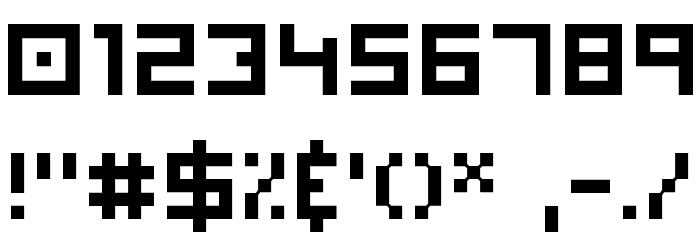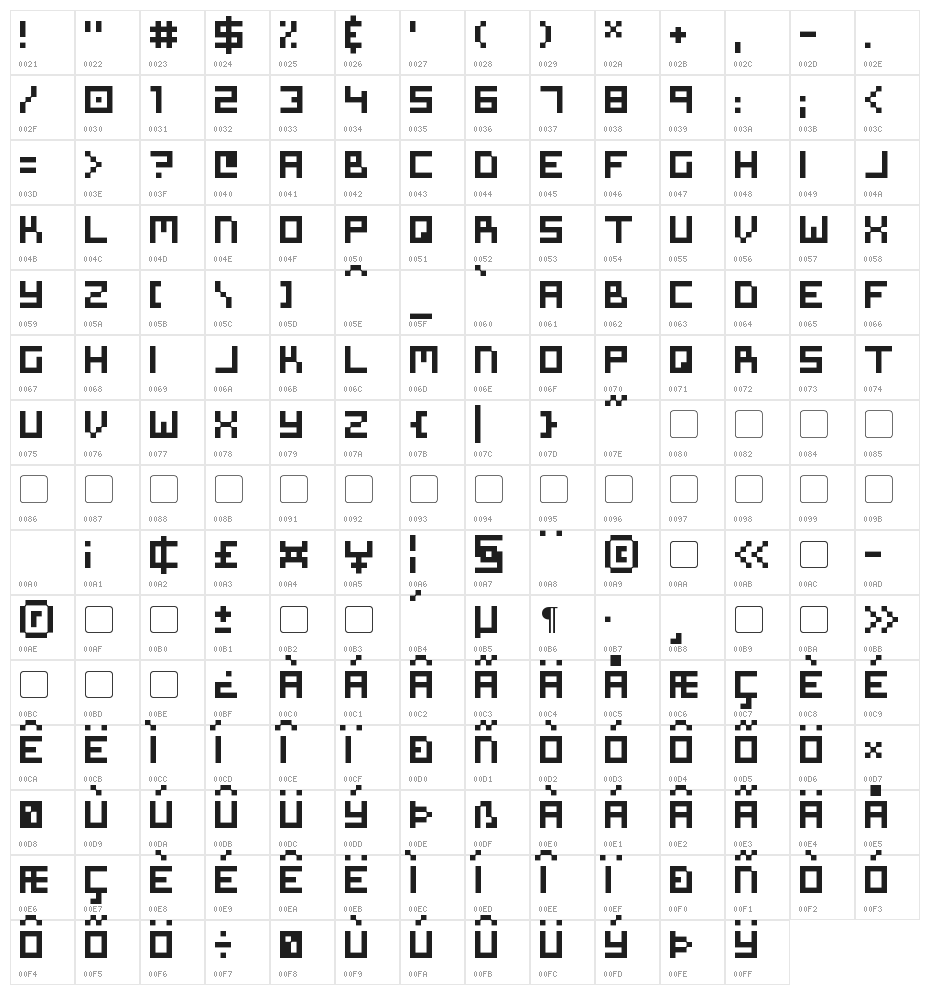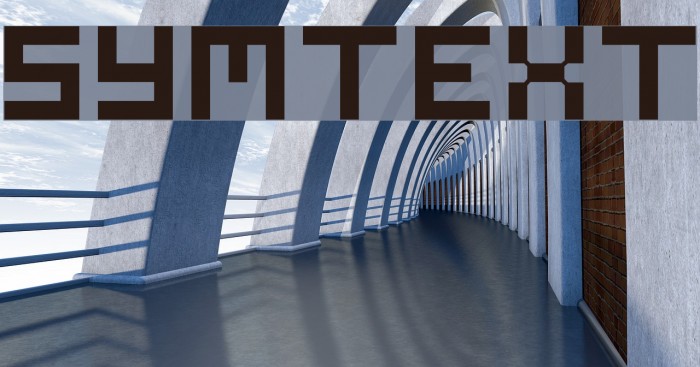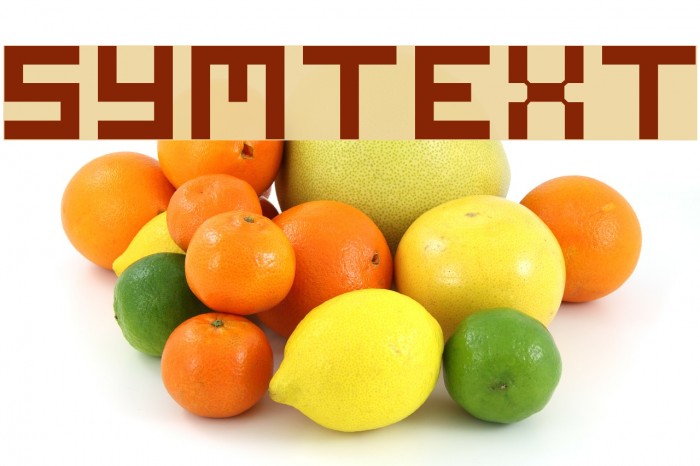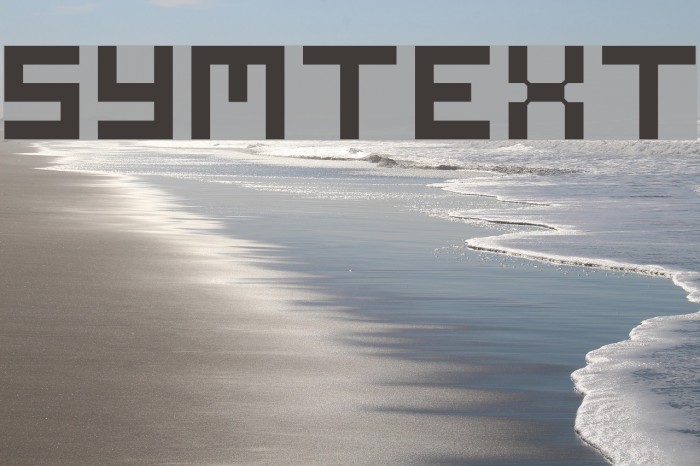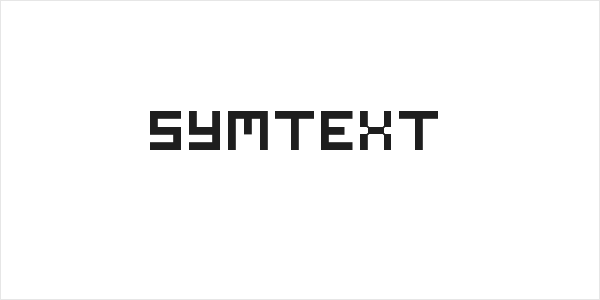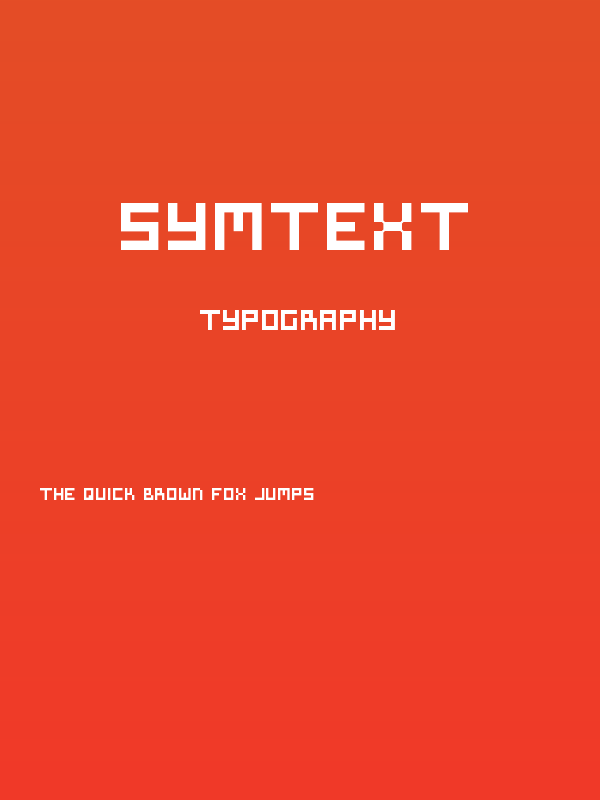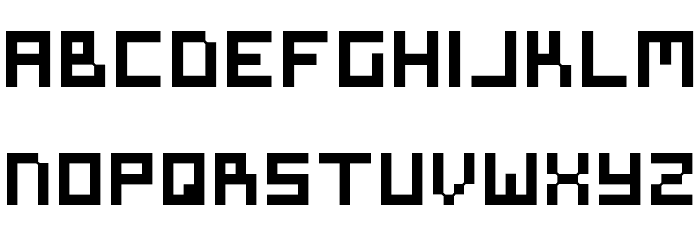
Symtext Font
Symtext Description
This font features a pixelated, blocky design reminiscent of early digital displays and video games. Each character is constructed with a uniform grid-like structure, giving it a distinctly retro and digital aesthetic. The uppercase and lowercase letters maintain a consistent height, with minimal differentiation between them, which enhances the uniformity and simplicity of the design. The numbers and special characters follow the same pixelated style, ensuring a cohesive look across all glyphs. This font's geometric and monospaced nature makes it ideal for projects that aim to evoke nostalgia or a tech-inspired theme.
| Use Case | Headlines, Logos, Digital displays |
| Proposed Projects | Ideal for video game design, retro-themed posters, digital art projects, and tech-inspired branding. |